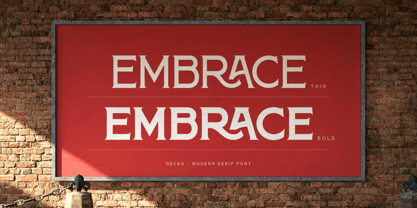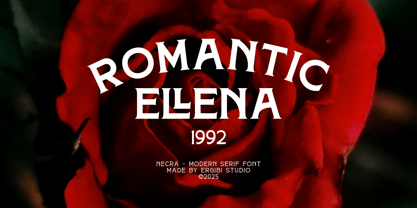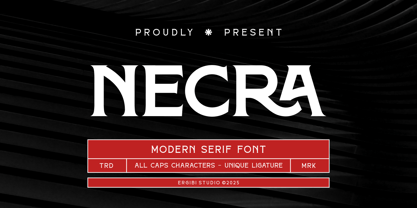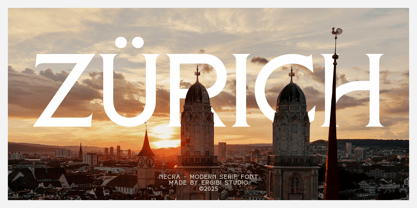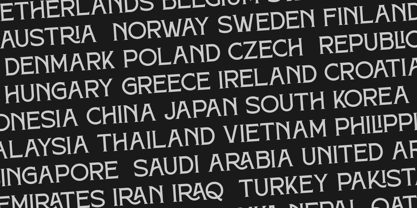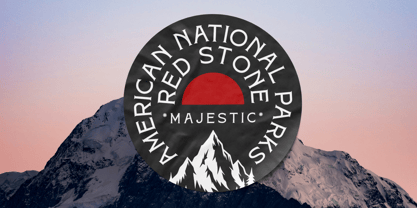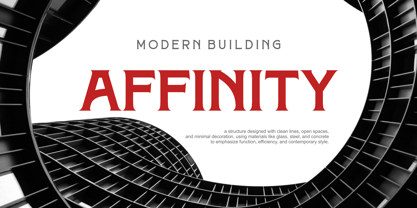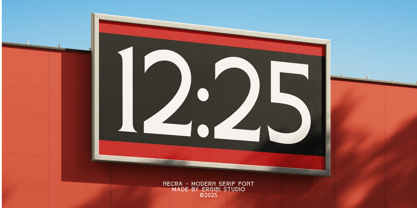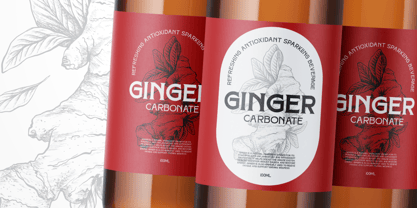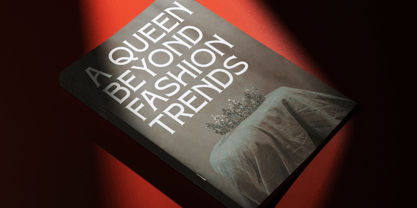
Necra
by Ergibi Studio
The Necra Font Family was designed by Riyadh Rahman and published by Ergibi Studio. Necra contains 2 styles and family package options. More about this family
NECRA is a modern serif typeface that blends timeless elegance with sharp, contemporary details. Crafted for high-impact designs, NECRA features clean lines, strong contrast, and stylish letterforms that make it perfect for headlines, logos, editorial layouts, branding, and packaging. Whether you're aiming for luxury, bold authority, or artistic minimalism, NECRA comes in two distinct weights, Thin and Bold, giving you the flexibility to create contrast and hierarchy within your designs.
Designers: Riyadh Rahman
Current Foundry: Ergibi Studio